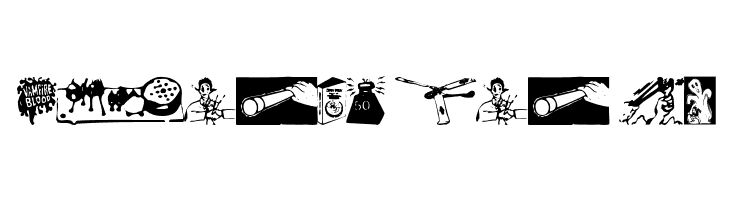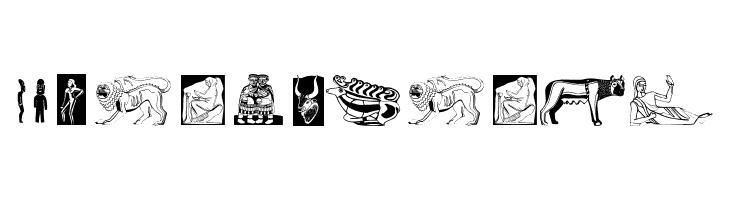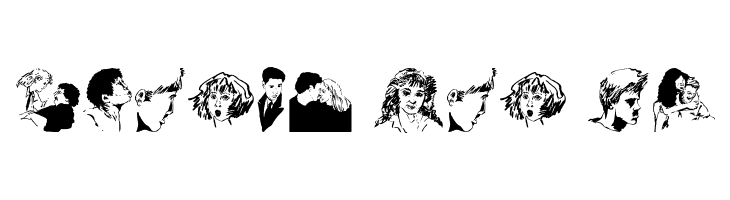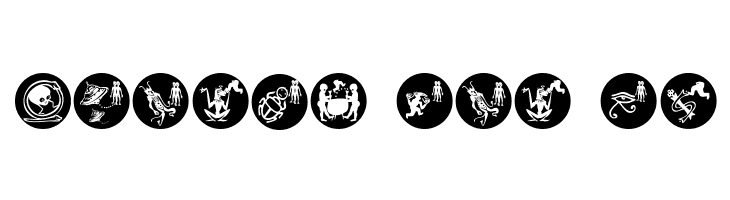
Intricate animal-themed decorative glyphs with a woodcut style.
( Fonts by Daniel Gauthier )
Comic-inspired dingbat font with retro illustrations for each character.
A whimsical collection of bold silhouette designs in square frames.
Illustrative font using Japanese cultural scenes for each character.
A pictorial display font featuring iconic sculptures as glyphs.
Illustrative display font using human figures as glyphs.
A decorative font featuring intricate Celtic-inspired designs and motifs.
Silhouette pictogram icons with a bold, graphic style.
A pictorial, decorative font based on pre-Columbian American art.
Playful, illustrated alien and creature icons in circular frames.